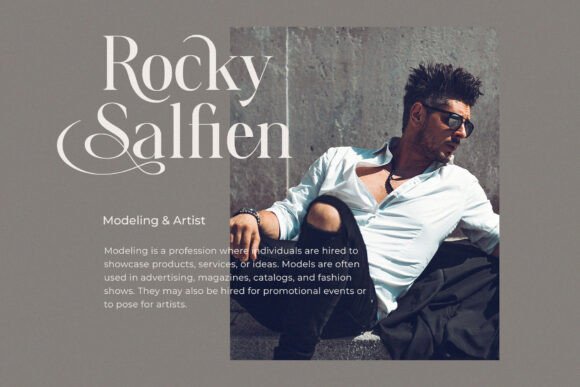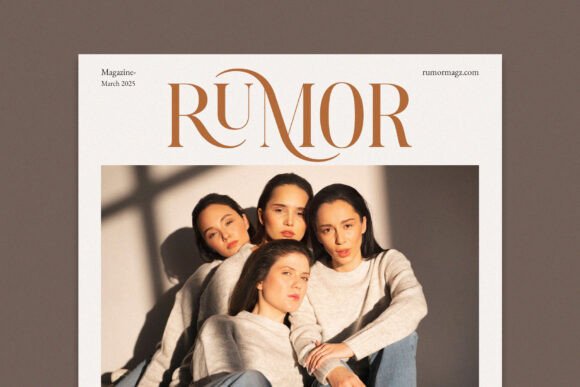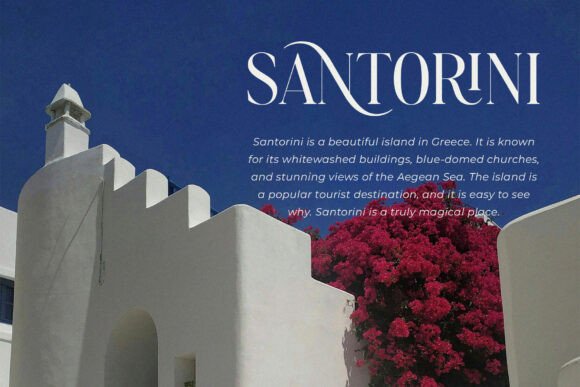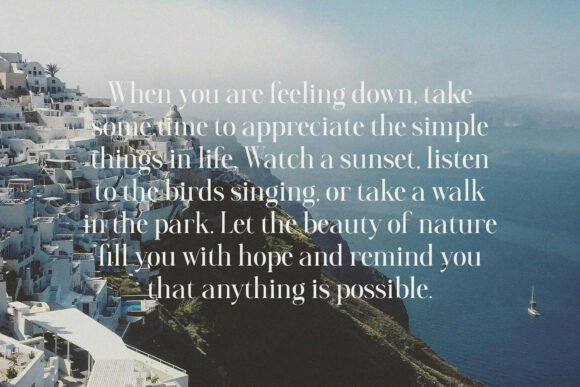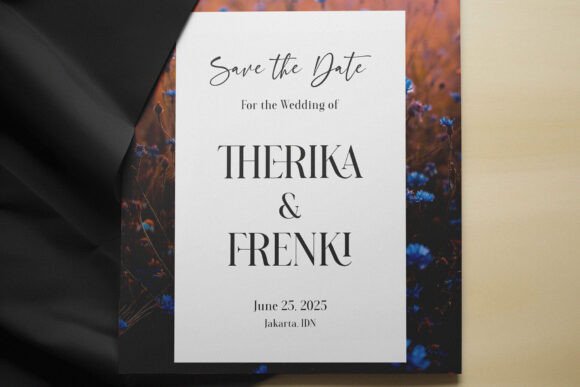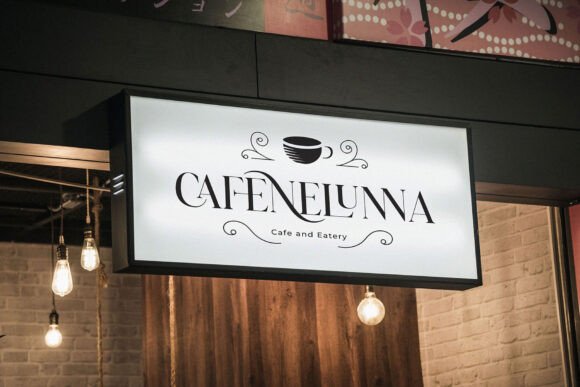
The Perfect Typographic Touch: Cavilenny Font
As designers, we’ve all been there – staring at a blank page, trying to find that perfect font to elevate our project. It’s like searching for the missing puzzle piece that brings everything together. And then, it hits us – that moment of pure creative bliss when we finally find the perfect typographic touch. For me, it was the moment I laid eyes on the Cavilenny Font.
Cavilenny is a modern display serif font designed to make a statement. With its clean lines and smooth curves, it’s perfect for headings, logos, branding, magazines, product packaging, and invitations. This versatile font adds a touch of class to any project, making it a valuable addition to any designer’s toolkit.
Whether you’re a seasoned pro or just starting out, the Cavilenny Font is a game-changer. Its elegant design and wide range of applications make it an essential tool for any designer looking to take their work to the next level.
- Unique Characteristics: This font features a unique blend of elegant and modern elements, making it suitable for a variety of design projects, including logos, headings, and body text.
Cavilenny Font Review
First, I want to say that the Cavilenny font has some really interesting features. The combination of a playful and elegant feel makes it ✨ perfect for projects that need a unique touch. The font also has a wide range of weights, from thin to bold, which allows for a lot of flexibility in terms of design.
However, I did notice a few limitations. The font may not be as readable in certain contexts, such as on small screens or at very small font sizes. This could lead to some issues with accessibility. Additionally, the font’s irregular letterforms may not be suitable for projects where a more traditional or formal look is desired. ⚠️
Overall, I think the Cavilenny font is a great choice for designers who want to add some personality to their projects. With its unique feel and wide range of weights, it’s a great option for logos, branding, and other design elements that need a little extra flair.
- Unique combination of playful and elegant feel
- Wide range of weights (thin to bold)
- Not suitable for projects requiring high readability
- May not be suitable for formal or traditional designs
For a more professional look, pair Cavilenny with a simple background and limited color palette.
For a creative look, use Cavilenny with a bold stroke and subtle texture overlay.
For a clean and modern look, use Cavilenny as the primary font and limit the number of font styles.
Cavilenny is ideal for:
- Brand identity and logos
- Marketing materials and social media
- Editorials and creative writing
Remember to experiment with different font sizes, colors, and styles to get the most out of Cavilenny.